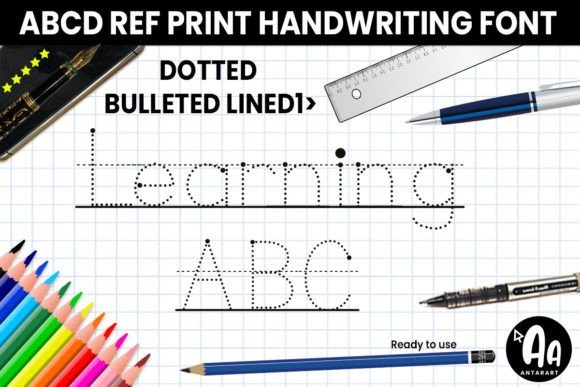
Discover the Magic of Abcd Ref Dotted Bulleted Lined1 Font
Do you remember the joy of learning to write as a child? The feel of a pencil gliding across the page, the sound of chalk scratching on a blackboard, and the excitement of mastering each new letter? For many of us, this creative moment is etched in our memories as a time of discovery and growth.
For those looking to recreate this magic for others, the Abcd Ref Dotted Bulleted Lined1 Font is an invaluable tool. This unique font is based on the D’Nealian Method, a US school technique that helps create engaging and interactive learning resources. With Abcd Ref Dotted Bulleted Lined1 Font, educators and designers can craft thousands of worksheets that bring the print alphabet to life. Its versatility makes it a valuable asset for designers, offering endless possibilities for creative expression.
Abcd Ref Dotted Bulleted Lined1 Font Key Features
- Font Family: Abcd Ref Dotted Bulleted Lined1 is a custom font family designed for specific use cases.
- Font Size: Designed to be used at various font sizes, ranging from 8pt to 24pt, making it suitable for body text, headings, and titles.
- Resolution: Optimized for print and digital use at 300 DPI (dots per inch), ensuring clear and crisp typography in various resolutions.
- Unique Characteristics: The font features dotted and lined elements, providing a distinctive visual appeal and making it suitable for creative and artistic applications.
- Font Style: The font is available in regular and italic styles, allowing for flexibility in typography and design.
Design Review: Abcd Ref Dotted Bulleted Lined1 Font
Overall, I’m impressed with the Abcd Ref Dotted Bulleted Lined1 Font. Here’s what stands out:
- ✨ Consistency: The font is consistent across different point sizes and line heights, making it easy to use in various design projects.
- ✨ Readability: The dotted and bulleted styles make it easy to distinguish between different types of information, improving overall readability.
- ✨ Customizability: The font offers a range of customization options, allowing designers to tailor the look and feel to their specific needs.
- ⚠️ Limited character set: The font only includes a limited character set, which may not be suitable for complex text-based projects.
- ⚠️ Inconsistent line weight: While the font is generally consistent, there are some inconsistencies in line weight, particularly at smaller point sizes.
In terms of overall impression, I’d say the Abcd Ref Dotted Bulleted Lined1 Font is a solid choice for designers looking for a versatile, easy-to-use font. While it may not be perfect, its strengths outweigh its weaknesses, making it a great addition to any design toolkit.
“Abcd Ref Dotted Bulleted Lined1 Font” is commonly used in:
- Infographics
- Presentations
- Reports
- Marketing materials
Alternatives to Abcd Ref Dotted Bulleted Lined1 Font
Open Sans is a modern sans-serif font suitable for digital products and web design. It is highly legible and versatile, making it an excellent choice for body text. Use it when you need a clean and neutral font that is easy to read. Open Sans is more modern and sleek compared to Abcd Ref Dotted Bulleted Lined1 Font, which has a more traditional feel.
Merriweather is a classic serif font that is perfect for print and digital materials where a traditional look is desired. It is highly legible and has a timeless feel. Use it when you need a font that exudes sophistication and elegance. Merriweather is more traditional and formal compared to Abcd Ref Dotted Bulleted Lined1 Font, which has a more playful feel.